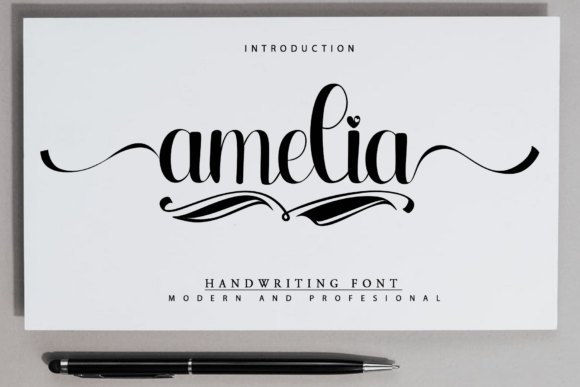
The Quest for the Perfect Font: Discovering Amelia
Ah, the eternal struggle of finding the perfect font for our design projects. I still remember the time I was working on a branding project for a boutique client, and I just couldn’t seem to find a font that captured the essence of her elegant and modern aesthetic. That was until I stumbled upon Amelia, a stylish handwritten font that has since become a staple in my design toolkit.
First Impressions: What I Love About Amelia
Amelia is a beautifully crafted font that exudes a sense of sophistication and refinement. Here are just a few things that I love about it:
- ✨ Elegant and flowing lines that give it a timeless feel
- ✅ Impeccable form and balanced design that make it perfect for body text and headlines
- 💫 A contemporary atmosphere that feels fresh and modern
- 🎨 A wide range of OpenType features and glyphs that allow for endless creative possibilities
The Not-So-Perfect: Small Quirks and Limitations
While Amelia is an exceptional font, it’s not without its quirks. Here are a few things to keep in mind:
- 🤔 Some users may find the font a bit too ornate for very small text sizes or body text
- ⚠️ Limited availability of certain language scripts and special characters
One of the standout features of Amelia is its extensive range of OpenType features and glyphs. These allow you to customize your text and add unique flourishes to your design. Some of the features you can expect to find include:
- Stylistic alternates for varying letterforms and swashes
- Ligatures for elegant connections between letters
- Old-style numerals and fractions for added texture
The Story Behind Amelia
Amelia was inspired by the timeless classic calligraphy of the past, with a modern twist. The designer aimed to create a font that was both elegant and approachable, with a range of features that would make it versatile and adaptable. The result is a font that feels both refined and contemporary.
- Q: What type of projects is Amelia best suited for?
- A: Amelia is perfect for branding, packaging, and advertising projects that require a touch of elegance and sophistication.
- Q: Is Amelia available in different weights or styles?
- A: Currently, Amelia is available in a single weight, but the designer may release additional weights or styles in the future.